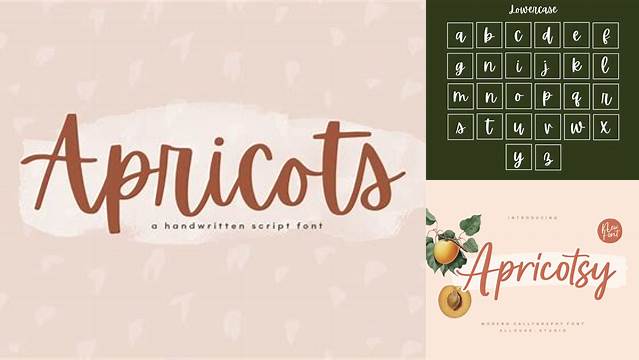
Hey guys! Are you on the hunt for a unique and charming handwritten font to spice up your designs? Look no further! We're super excited to introduce you to "Apricots," a delightful font that's perfect for adding a personal touch to, well, just about anything. From logos and branding materials to social media graphics and wedding invitations, Apricots is a versatile gem that'll make your projects shine. But first, let's get down to the nitty-gritty of what makes a handwritten font truly special. We'll dive deep into what to look for when you're browsing the vast world of fonts, the different styles that exist within the handwritten category, and why choosing the right font can be a game-changer for your overall design aesthetic.
Think about it, the font you choose is more than just letters on a page (or a screen!). It's a visual representation of your brand's personality, the mood you want to evoke, and the message you want to convey. A playful, quirky handwritten font like Apricots can instantly add warmth and approachability, making your brand feel more human and relatable. On the other hand, a sleek and modern sans-serif font might project a sense of professionalism and sophistication. That's why it's so important to choose wisely! When selecting a handwritten font, consider the overall tone and style of your project. Are you aiming for a rustic, vintage feel? Or something more contemporary and chic? Do you need a font that's easily readable for body text, or are you looking for a more decorative option for headlines and titles? These are all crucial questions to ask yourself before you start scrolling through endless font libraries.
So, what are the key characteristics that define a great handwritten font? First and foremost, it should look natural. The best handwritten fonts mimic the flow and imperfections of real handwriting, with subtle variations in stroke thickness and letterforms. This gives them a genuine, organic feel that's hard to replicate with a more rigid, geometric typeface. Secondly, readability is key, even for a decorative font. While you might be drawn to a font with elaborate flourishes and swashes, make sure it's still legible, especially when used in smaller sizes. There's nothing worse than a beautiful font that no one can actually read! Lastly, consider the font's versatility. Can it be used in a variety of contexts, from print to digital? Does it include a full character set with all the necessary punctuation and symbols? And does it come in different weights and styles, such as bold, italic, and light? The more versatile a font is, the more mileage you'll get out of it. Now, let's get back to Apricots and explore why we think it's such a fantastic choice for your next project!
Why Apricots Stands Out: A Deeper Dive
So, what exactly makes Apricots a font worth downloading (for free, might we add!)? Let's break it down. First off, Apricots exudes charm. It has this lovely, slightly whimsical feel that's just so inviting. Imagine using it for a blog header, a greeting card, or even a logo for a small business. It instantly adds a touch of personality and warmth. The creators of Apricots have clearly put a lot of thought into the details. The letterforms have a natural, flowing quality that truly mimics real handwriting. There are subtle variations in the strokes, and the connections between letters are smooth and organic. This is what sets Apricots apart from some of the more generic handwritten fonts out there. It feels authentic and genuine, not like it was churned out by a computer. But before we get too carried away with the aesthetics, let's talk about usability. After all, a beautiful font is no good if it's a pain to work with! Luckily, Apricots scores high in this department too.
Apricots boasts excellent readability, which is crucial for any font, but especially for handwritten ones. Some handwritten fonts can be overly stylized, making them difficult to decipher, especially in smaller sizes. Apricots, however, strikes a perfect balance between style and clarity. The letterforms are distinct and well-defined, making it easy to read even in body text. This makes it a great option not just for headlines and titles, but also for shorter paragraphs and captions. Another thing we love about Apricots is its versatility. It's not a one-trick pony! It works well in a variety of design contexts, from playful and informal to elegant and sophisticated. Imagine using it for a children's book, a wedding invitation, or even a website for a creative agency. It adapts beautifully to different styles and aesthetics. This versatility stems from its balanced design. It's not overly quirky or stylized, but it's also not bland or generic. It sits right in that sweet spot of being unique and interesting while still being clean and readable. So, you have this awesome font, but how do you actually use it effectively? Don't worry, we've got some tips and tricks for you!
Using a handwritten font like Apricots effectively requires a bit of finesse. You don't want to overuse it, but you also want to make sure it stands out in the right way. The key is to think about context and contrast. Think of context and contrast when using Apricots. For example, if you're using Apricots for a headline, you might pair it with a simpler, more geometric sans-serif font for the body text. This creates a visual contrast that makes both fonts pop. Apricots, with its hand-drawn feel, will stand out beautifully against the clean lines of the sans-serif. Conversely, if you're using Apricots for body text, you might choose a bolder, more impactful font for the headlines. This will draw the reader's eye to the main points while still maintaining a cohesive overall look. Color is another powerful tool you can use to make Apricots shine. Because it's a relatively delicate font, it can get lost if you use it in a color that's too similar to the background. Try using a contrasting color to make it stand out, or experiment with different shades and tints to create visual interest. For example, imagine Apricots in a vibrant coral against a clean white background, or in a soft grey against a deep navy. The possibilities are endless! Size also plays a crucial role in how Apricots appears in your design. In general, handwritten fonts tend to look better at larger sizes, where their unique details can be appreciated. However, as we mentioned earlier, Apricots is surprisingly readable even at smaller sizes, so you have some flexibility here. Experiment with different sizes to see what works best for your specific project.
Common Font Faux Pas: What to Avoid When Using Handwritten Fonts
Using a handwritten font like Apricots can be a fantastic way to add personality and charm to your designs, but it's also easy to fall into some common traps. To make sure your designs look polished and professional, here are a few font faux pas to avoid. First up: don't overuse handwritten fonts! While Apricots is lovely, using it for everything on your page can quickly become overwhelming. Handwritten fonts are best used sparingly, as accents or highlights. Think of them as the icing on the cake, not the whole cake itself. As we mentioned earlier, pairing Apricots with a simpler, more neutral font is a great way to create visual contrast and prevent your design from feeling cluttered. Another common mistake is using too many different fonts in a single design. A good rule of thumb is to stick to two or three fonts at most. Any more than that, and your design can start to look chaotic and confusing. Choose fonts that complement each other and work well together. Consider their styles, weights, and overall personalities. Do they feel like they belong together? Do they create a cohesive look? Readability is key when it comes to fonts. A beautiful font is useless if no one can read it! Avoid using overly stylized or decorative handwritten fonts for large blocks of text. These fonts can be difficult to decipher, especially in smaller sizes. Stick to clean, legible fonts for body text, and save the fancy stuff for headlines and titles.
Another thing to watch out for is font size. Handwritten fonts often look best at larger sizes, where their unique details can be appreciated. However, don't go overboard! Using a font that's too large can make your design feel overwhelming and unbalanced. Experiment with different sizes to find the sweet spot. Kerning and leading are two more important factors to consider when working with fonts. Kerning refers to the spacing between individual letters, while leading refers to the spacing between lines of text. Adjusting these settings can make a big difference in the overall readability and visual appeal of your design. Poor kerning can make a word look cramped or uneven, while insufficient leading can make lines of text feel too close together. Finally, don't forget to consider your target audience and the overall tone of your project. A playful, whimsical font like Apricots might be perfect for a children's book or a wedding invitation, but it might not be the best choice for a serious business report or a legal document. Choose fonts that are appropriate for the context and that effectively communicate your message. In conclusion, Apricots is a fantastic free handwritten font that can add a touch of charm and personality to your designs. By understanding its strengths and weaknesses, and by avoiding common font faux pas, you can use it effectively to create beautiful and impactful visuals. So go ahead, download Apricots and start experimenting! We can't wait to see what you create!